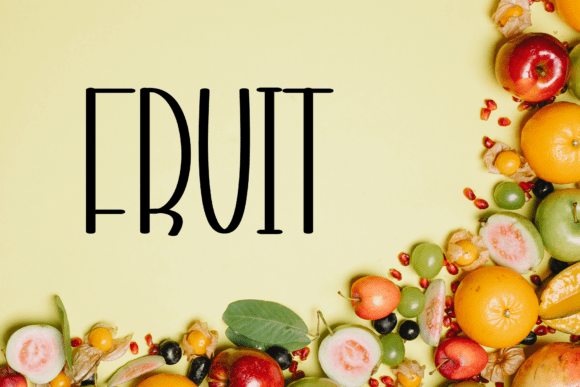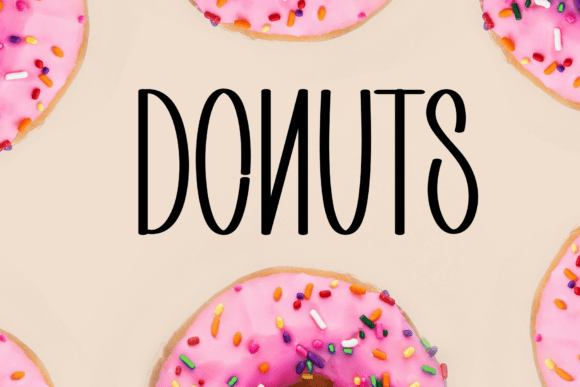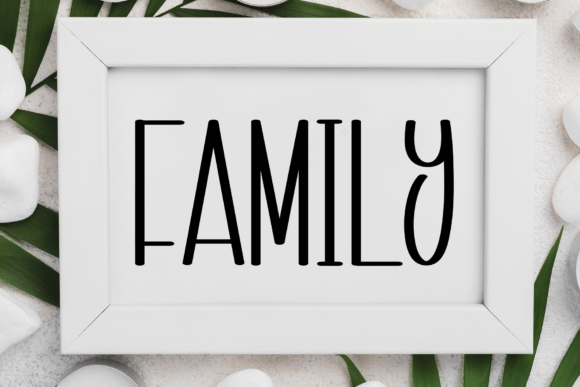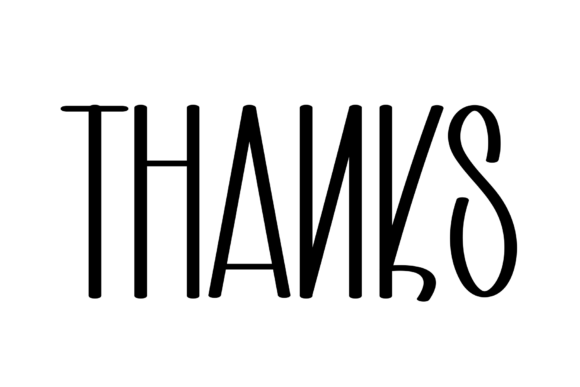
The Quest for the Perfect Font: How Cowboy Banana Stole My Heart
I’ll never forget the design project that led me to discover the charming Cowboy Banana font. I was working on a whimsical craft project, aiming to create a warm and inviting feel, but my font choices were falling flat. That’s when I stumbled upon Cowboy Banana, a sweet and beautiful handwritten font that instantly captivated me.
Featuring characters that dance along the baseline, Cowboy Banana adds a cozy accent to any design project. Its unique charm and personality make it perfect for designers, crafters, and creative hobbyists looking to add a touch of warmth and playfulness to their work.
The Good: Why I’m Obsessed with Cowboy Banana
- ✨ Unique Character Movement: The way characters dance along the baseline gives Cowboy Banana a lively, dynamic feel that’s hard to find in other fonts.
- ✅ Easy to Read: Despite its playful nature, Cowboy Banana remains highly legible, making it suitable for both headings and body text.
- 💕 Versatile: This font works beautifully across various design projects, from invitations and crafts to branding and digital media.
The Not-So-Perfect: A Few Quirks
While Cowboy Banana is a stunning font, there are a few things to keep in mind:
- 🤔 Limited Formality: Given its playful nature, Cowboy Banana might not be the best fit for projects requiring a formal or corporate tone.
- ⚠️ Glyph Variety: Some users might find the selection of glyphs or special characters a bit limited compared to more extensive font libraries.
The Story Behind Cowboy Banana: A Designer’s Inspiration
Cowboy Banana was created with the intention of capturing a sense of whimsy and warmth. Imagine a font that feels like it was written with a piece of chalk on a sunny afternoon. The designer aimed to create a typeface that would evoke feelings of coziness and friendliness, making it perfect for a wide range of creative projects.
Q: Is Cowboy Banana suitable for body text?
A: While Cowboy Banana is primarily designed for headings and accents, its readability makes it possible to use for short paragraphs of body text, especially in creative or craft projects.
Q: Does Cowboy Banana support multiple languages?
A: The font may support a range of languages, but the extent of language support can depend on the specific characters included. It’s best to test the font with your specific language needs.